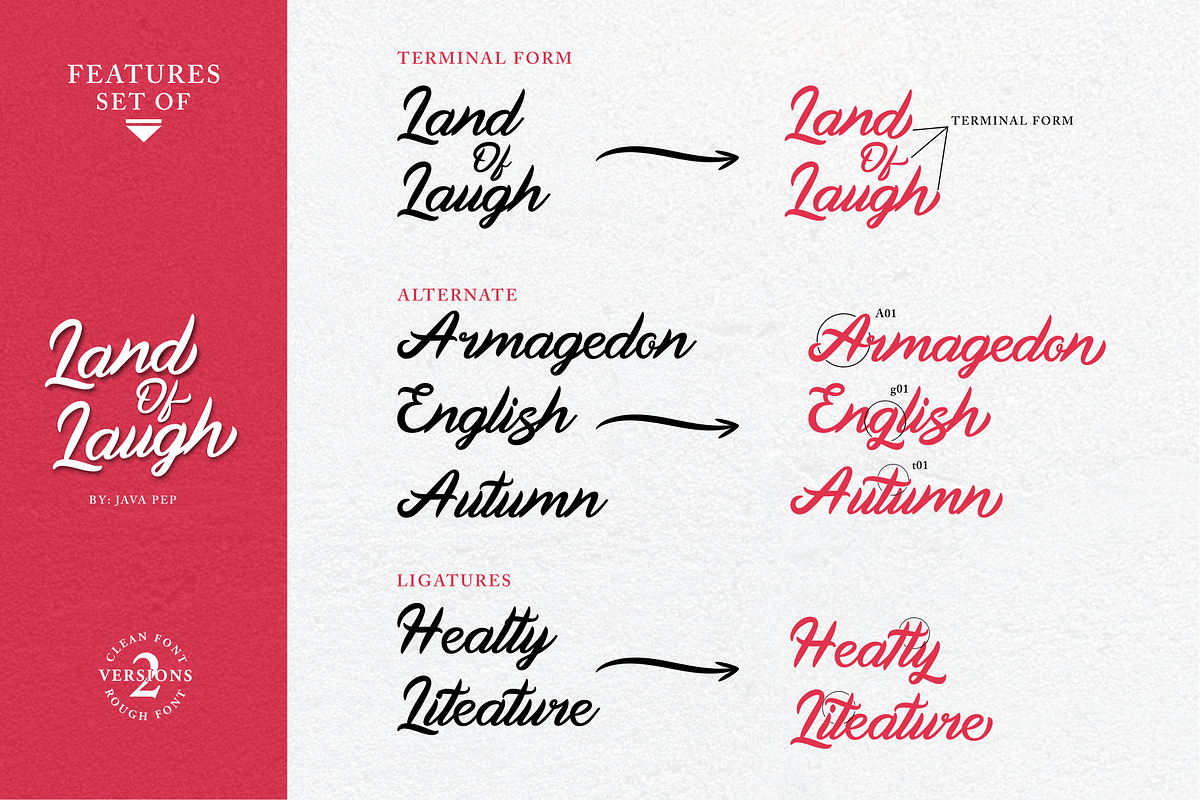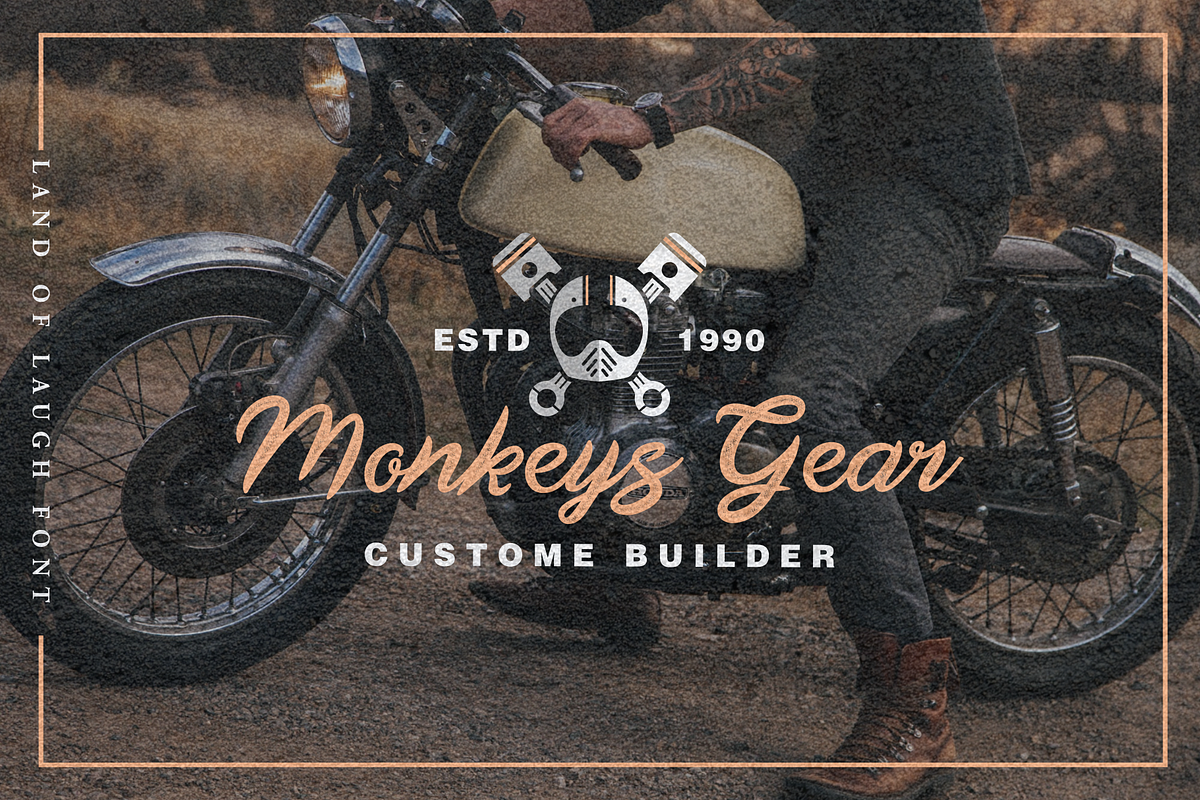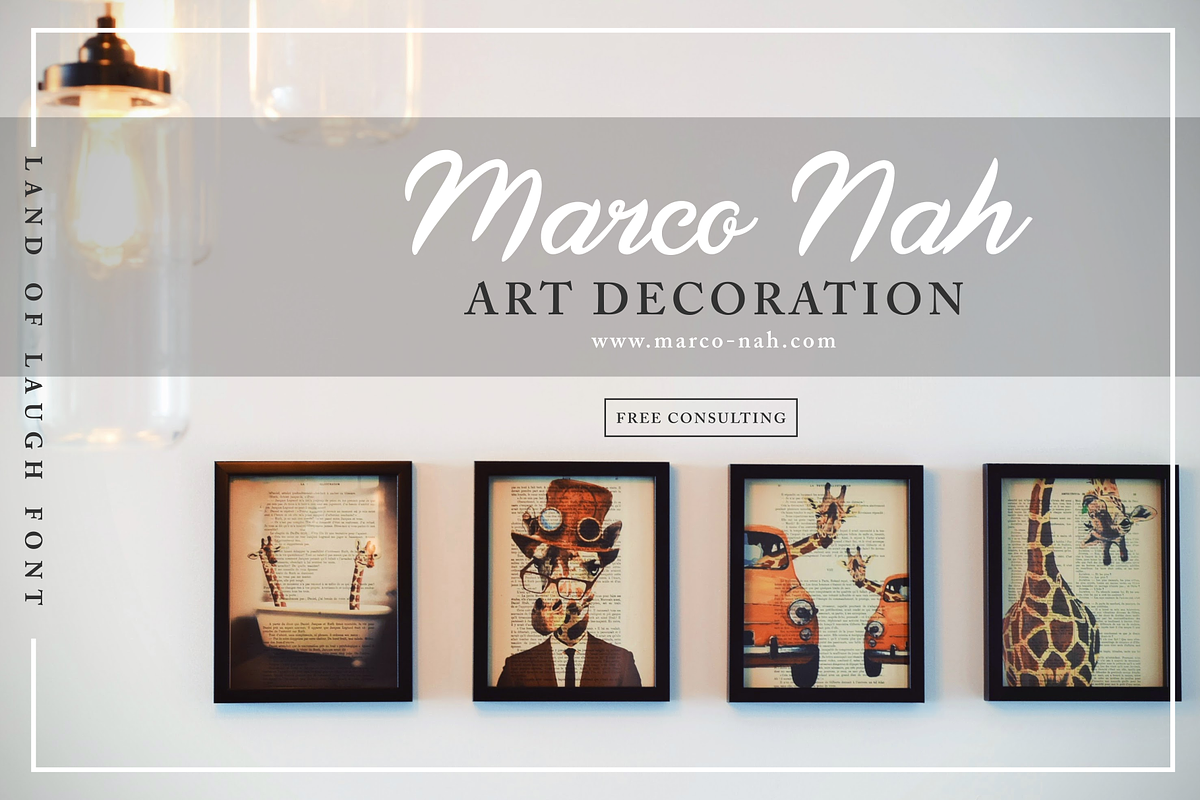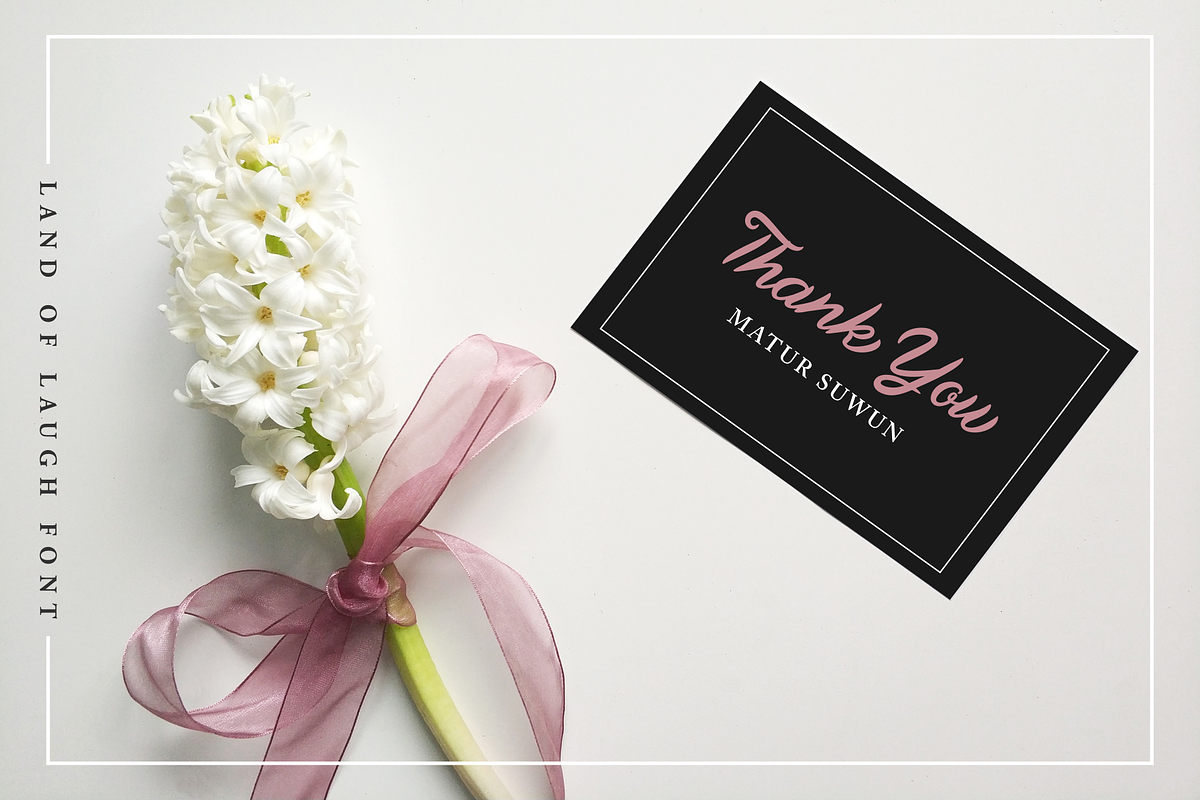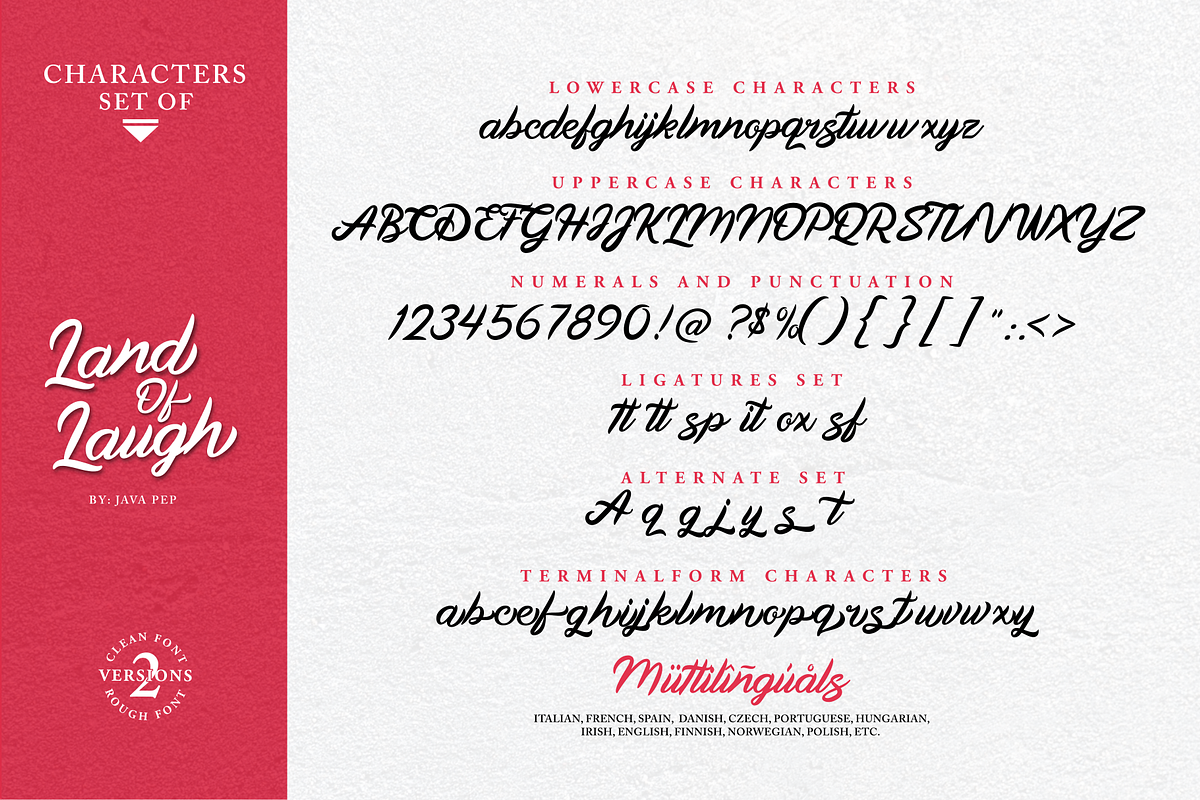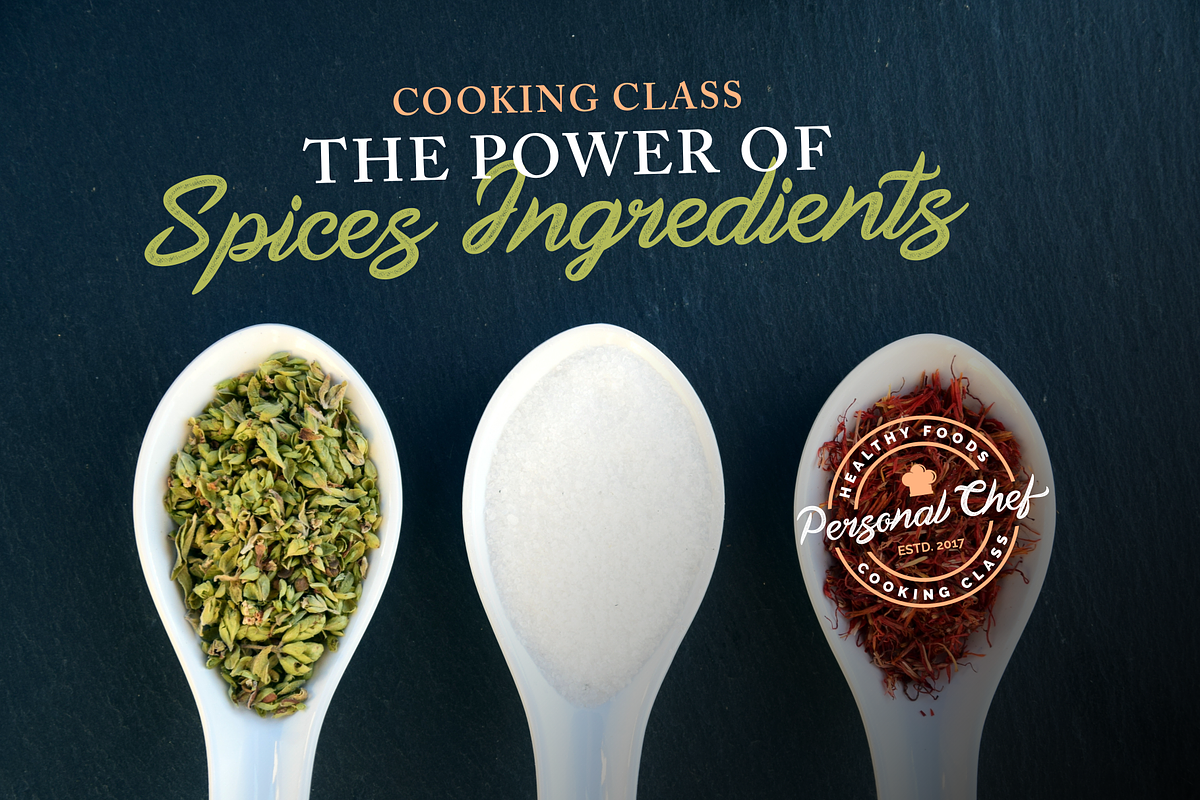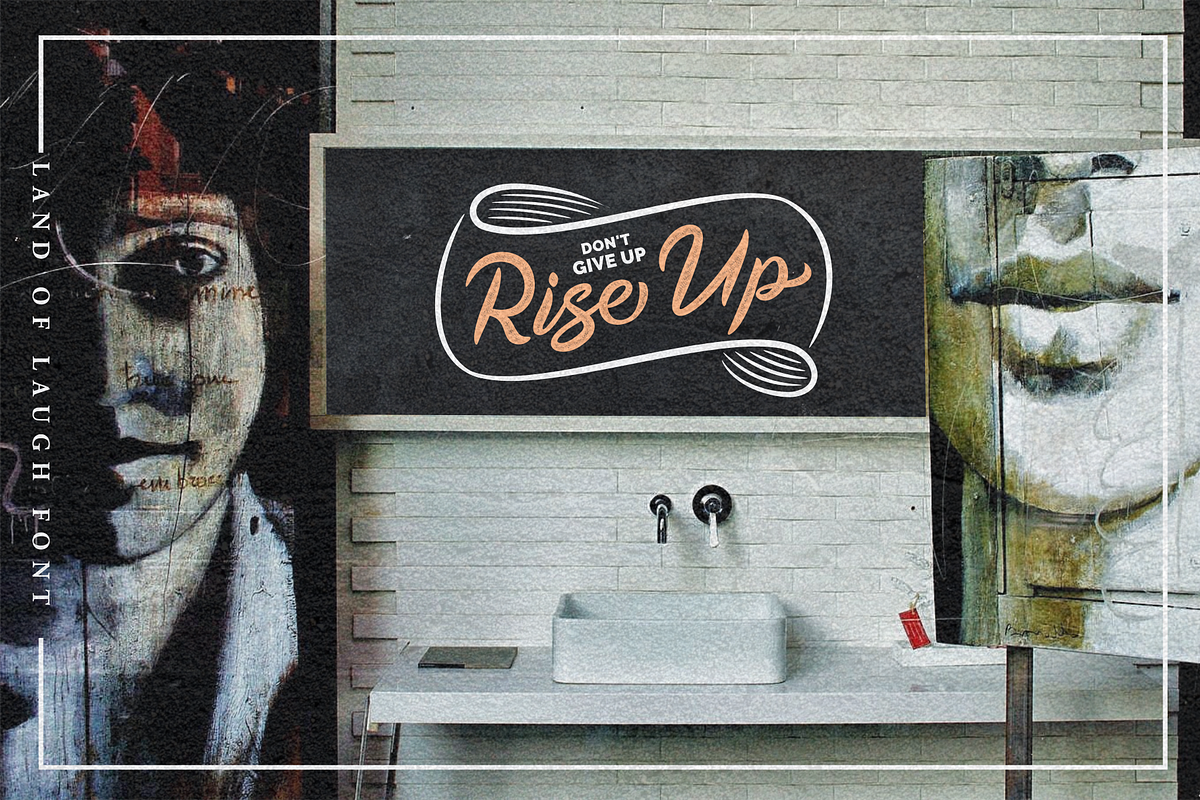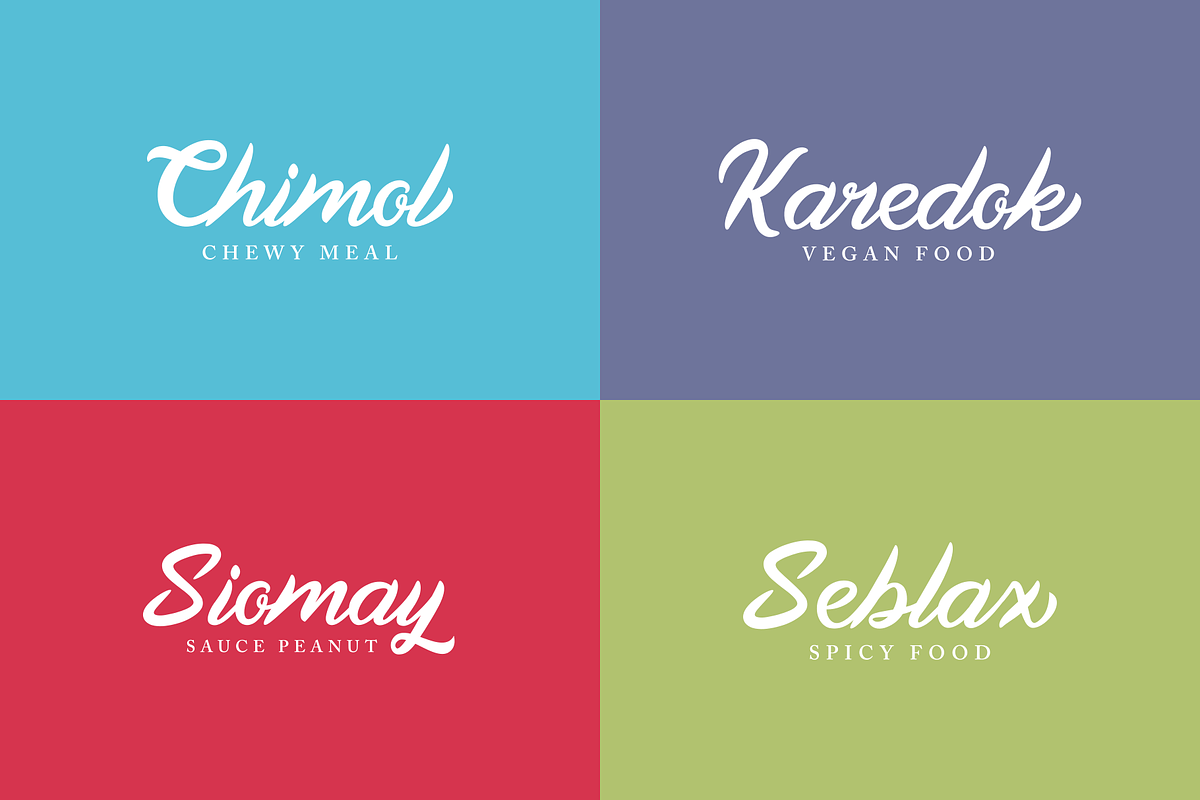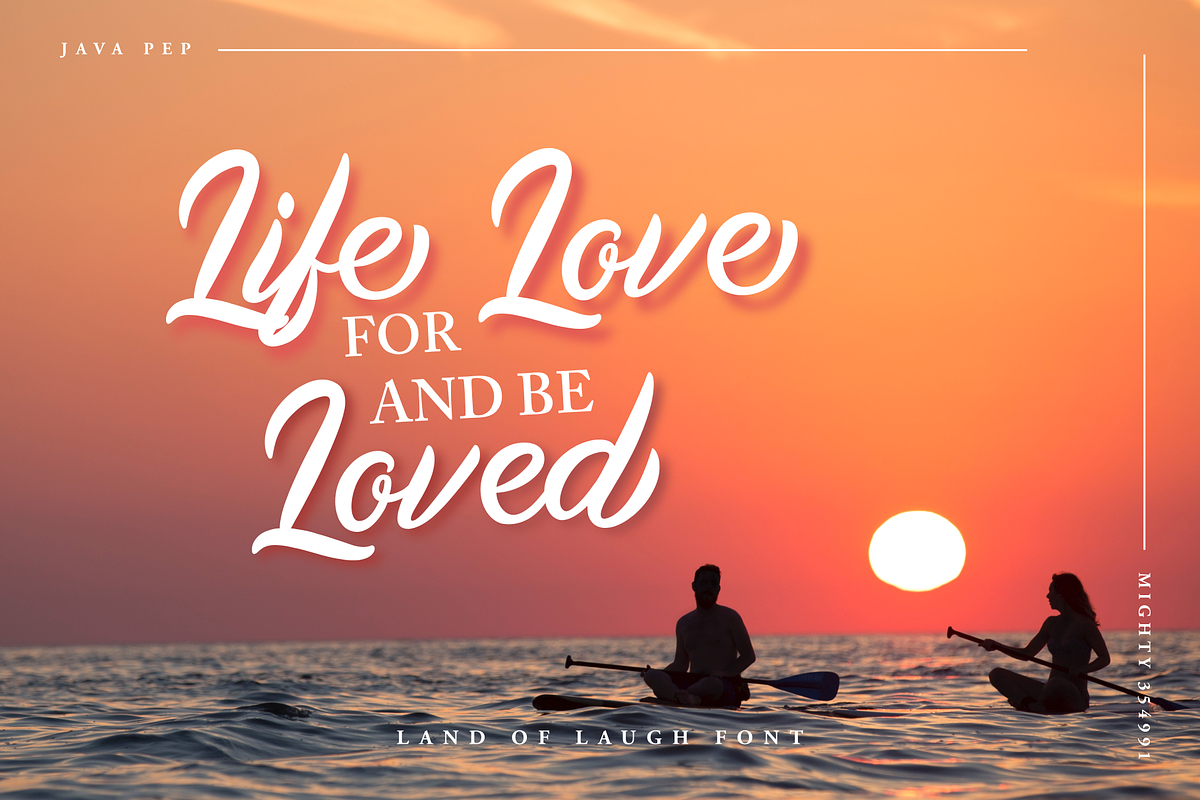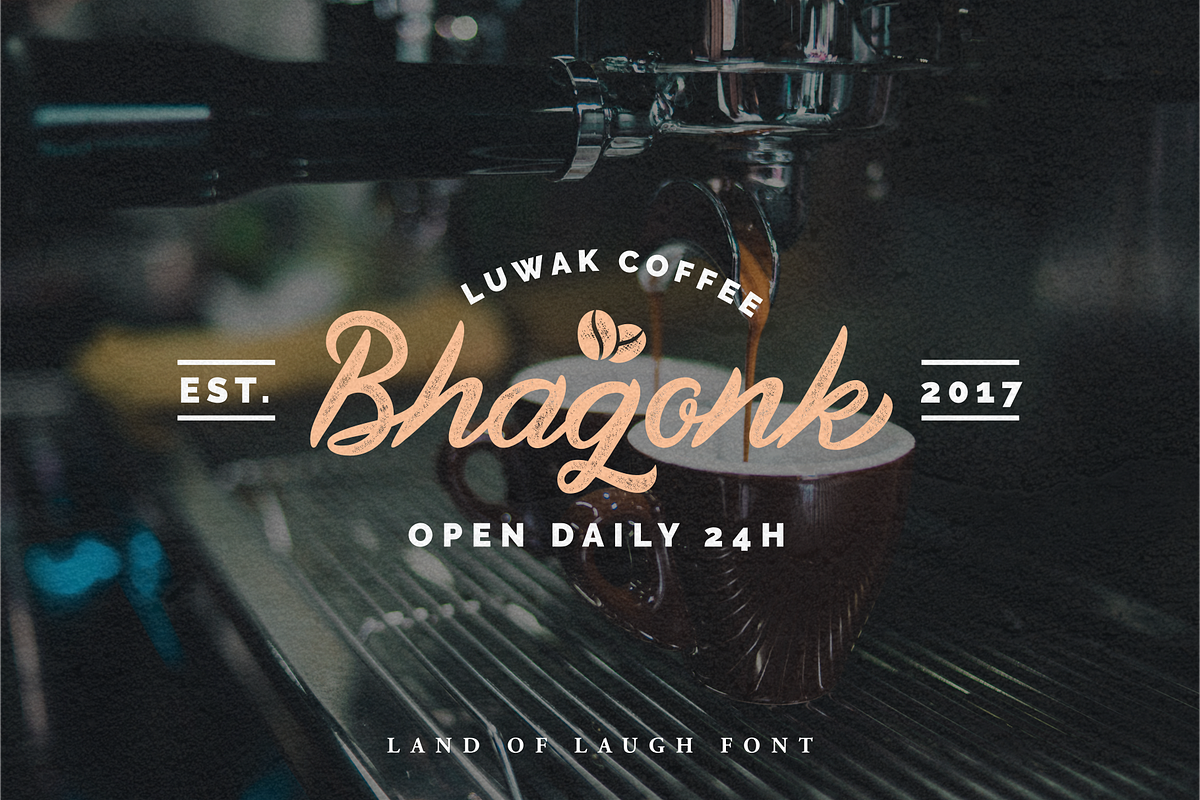
Land Of Laugh -Clean & Rough
I had long time to designed this font and finally had finished yeee:)✨. These font have two characters clean and smooth rough. The LOL(Land Of Laugh) font is flexible to placed at modern or vintage design. For modern looks, this font is perfect if you combine it whit serif font and for vintage or classic you combine it whit sanserif font. The LOL font is also perfect for logotype, branding and identitiy, magazine or book tittle, web header, poster, banner, clothing, greeting card, and etc.
⭐ Features font
- Terminal form
- Alternate glyphs
- Ligatures- Multilingual support (contact me if you need to add your language)